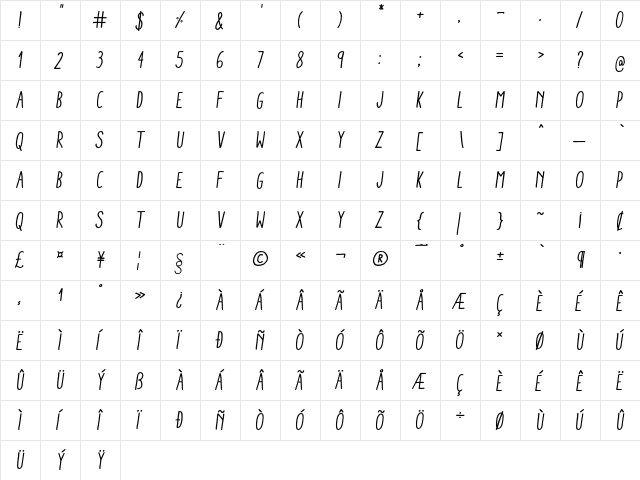
Aracne Condensed Regular Italic Condensed Regular Font Preview
| Foundry | Julia Martinez Diana, Antipixel. |
| Designer | Julia Martinez Diana, Antipixel |
Design Context for Aracne Condensed Regular Italic Typeface
Aracne Condensed Regular Italic offers clean, dependable letterforms without strong stylistic allegiance, making it a practical choice for designers who need flexibility. The slanted form adds forward momentum and visual energy. Its narrow stance lets it pack a punch even in space-constrained designs.
Pro Tip: Try Aracne Condensed Regular Italic for annotation and caption copy alongside an upright companion — the contrast in angle creates a dynamic but ordered typographic system.